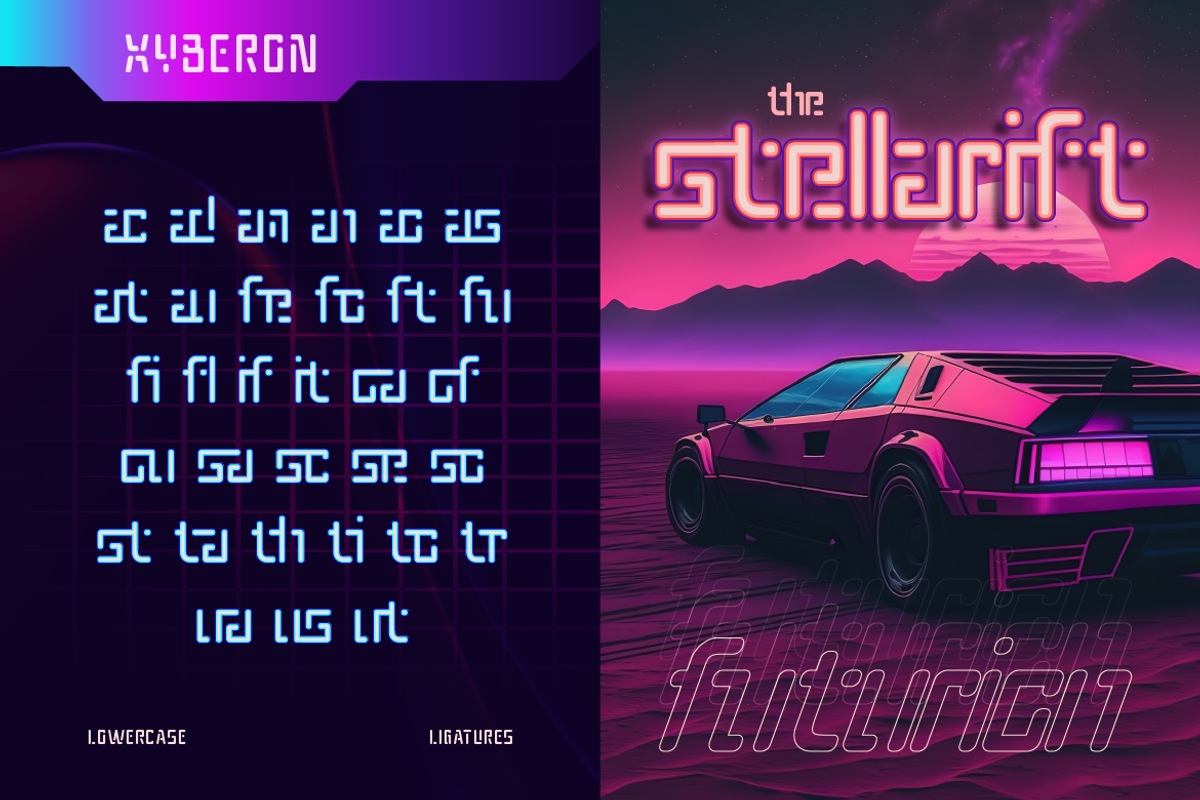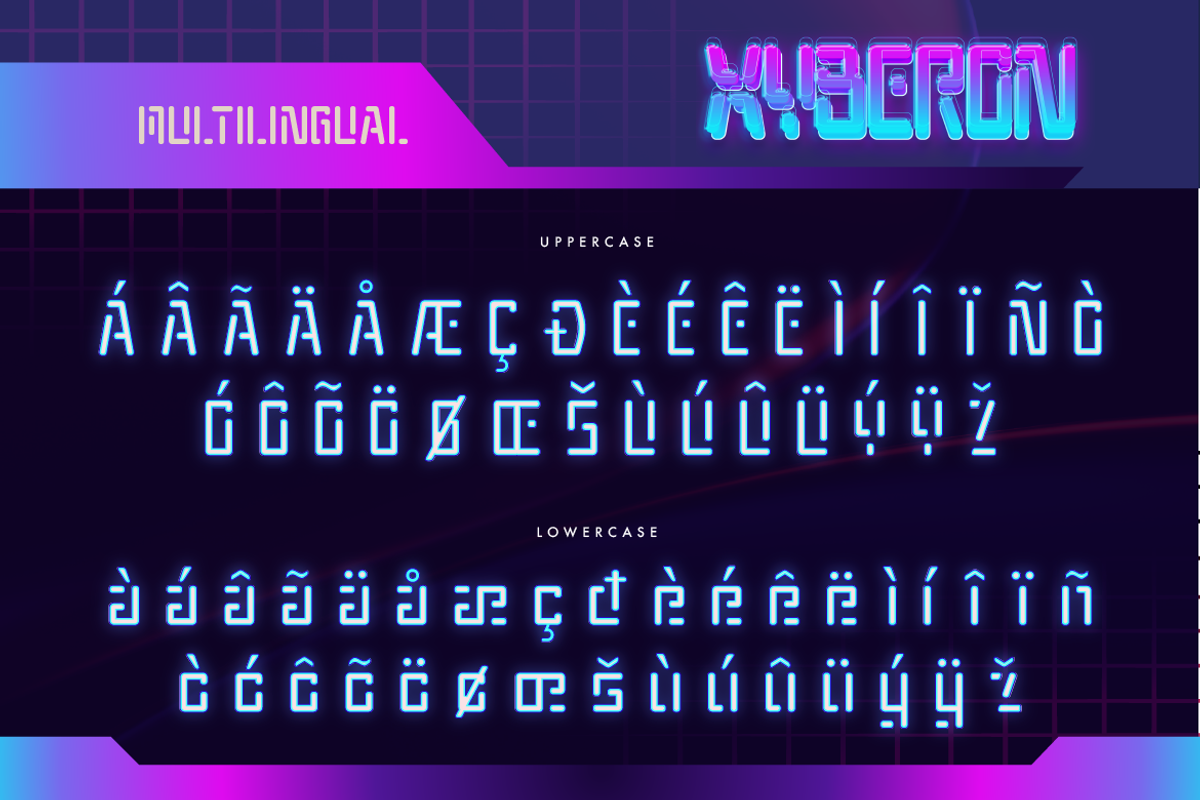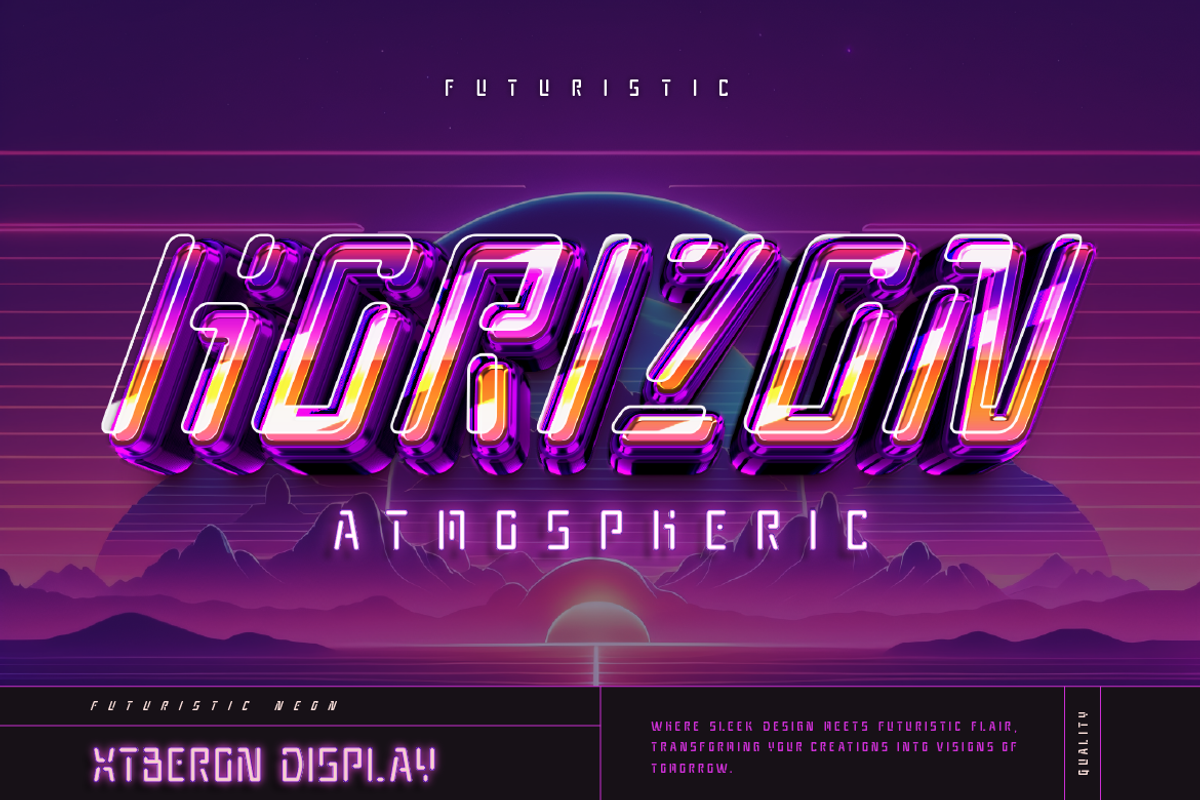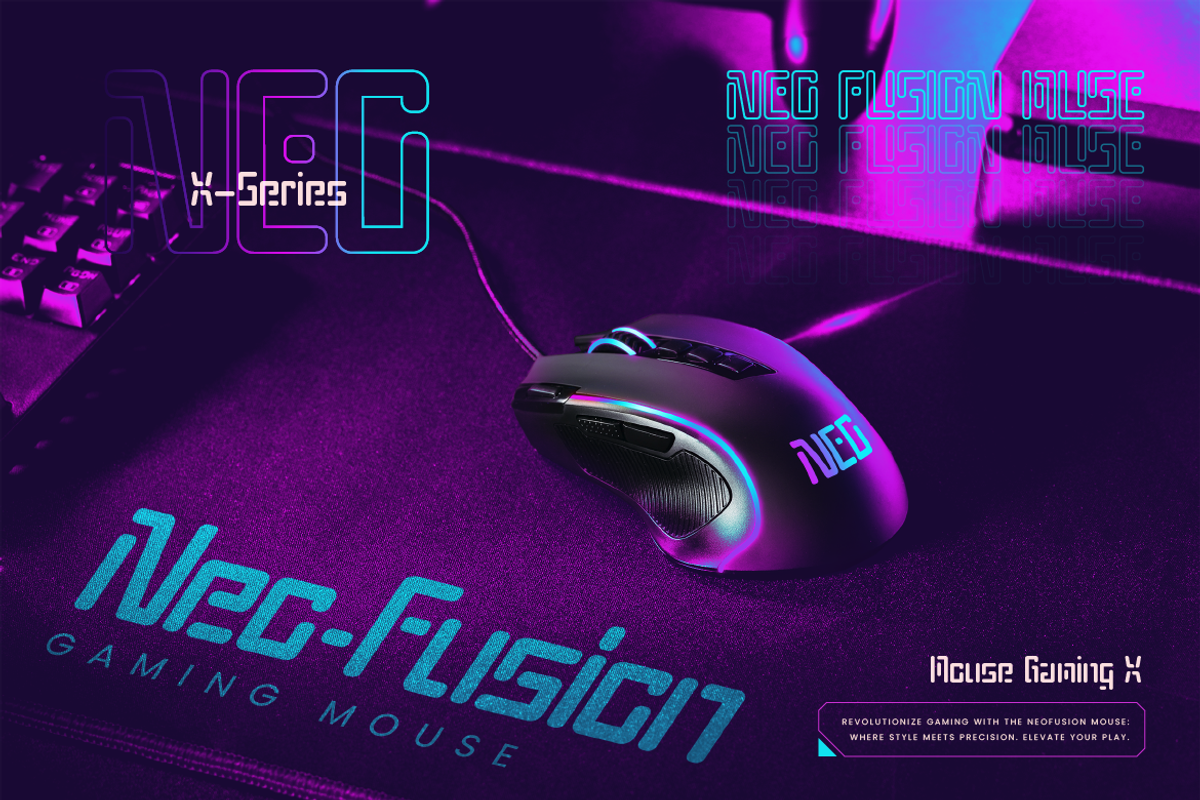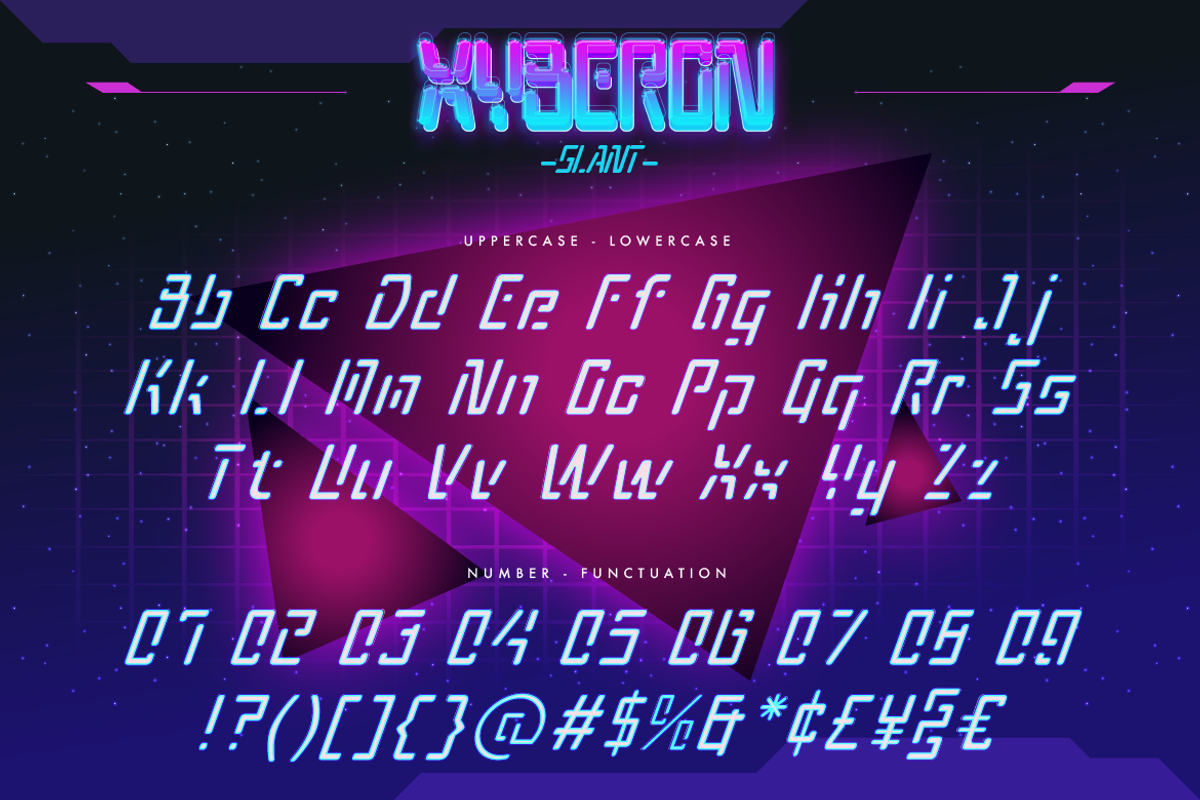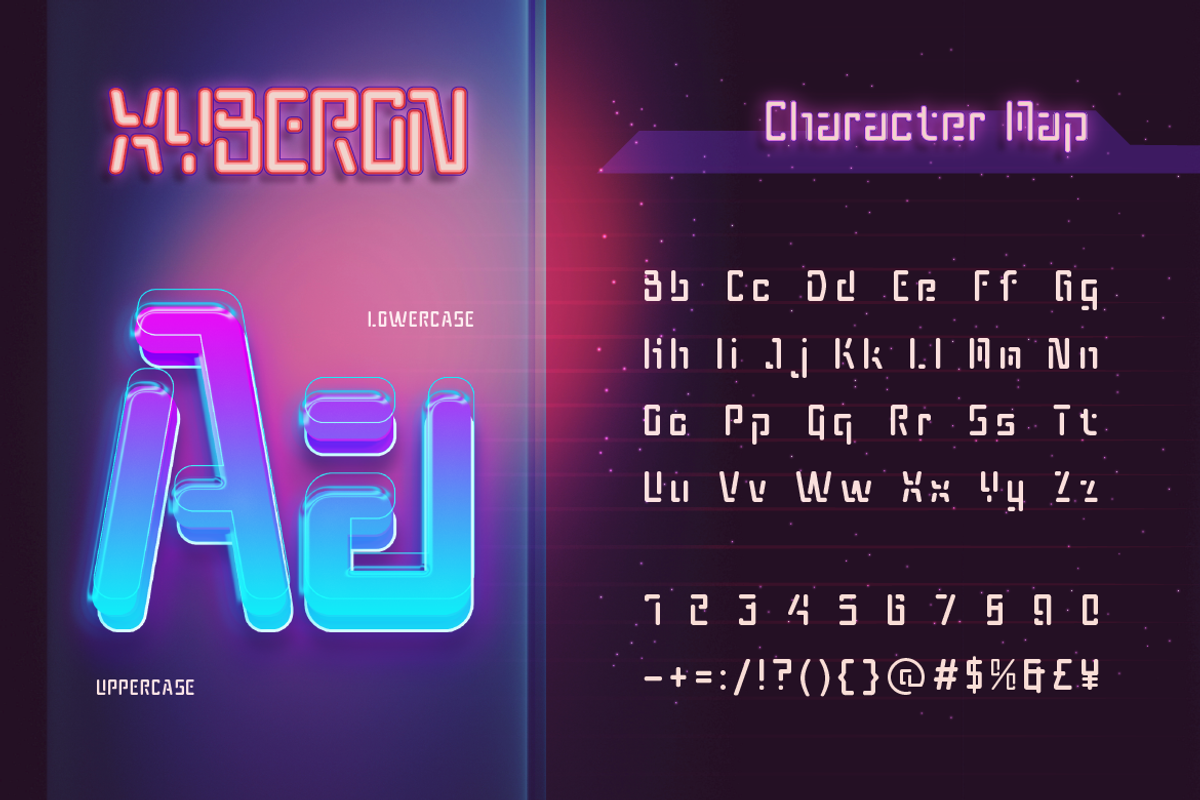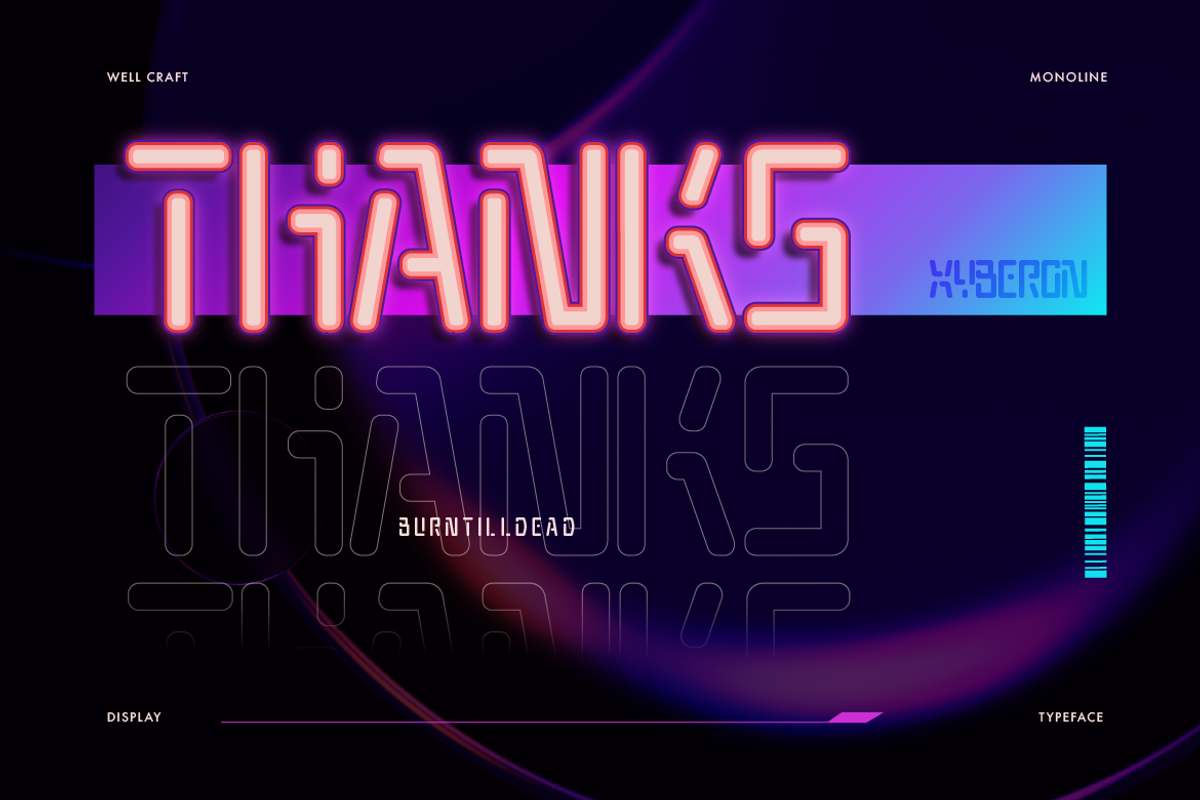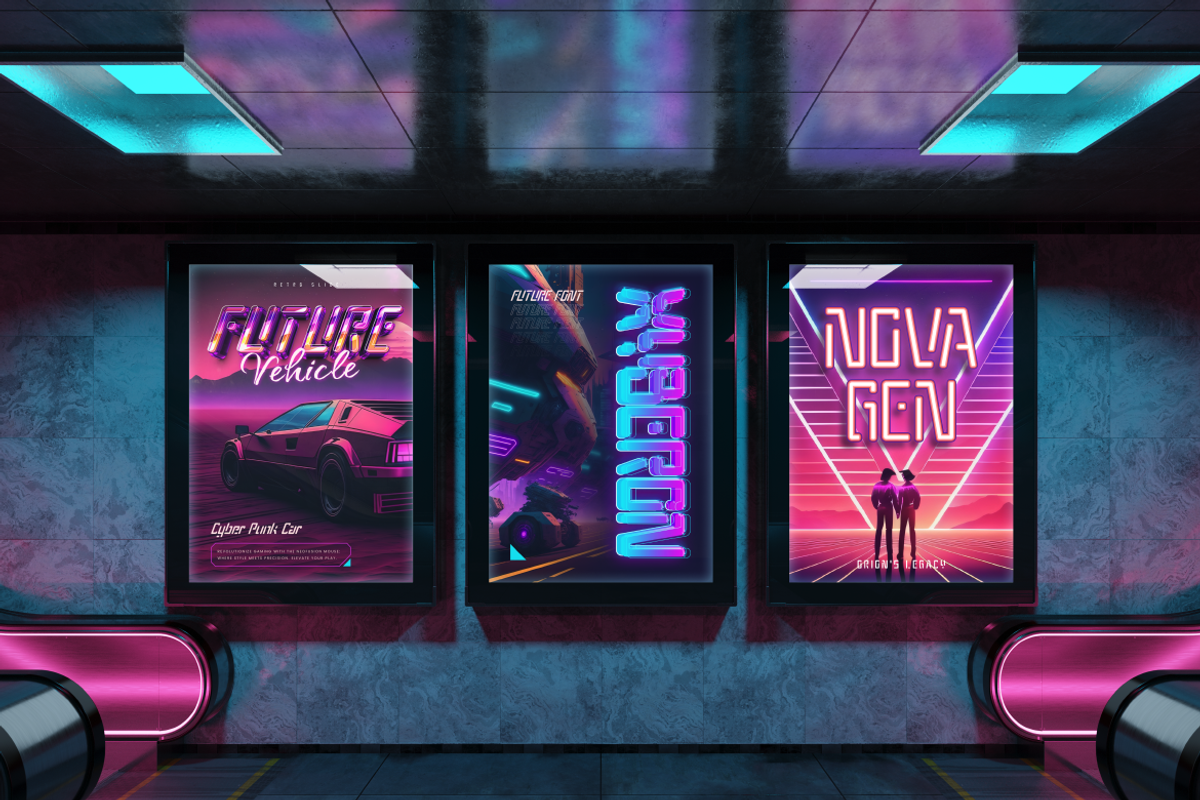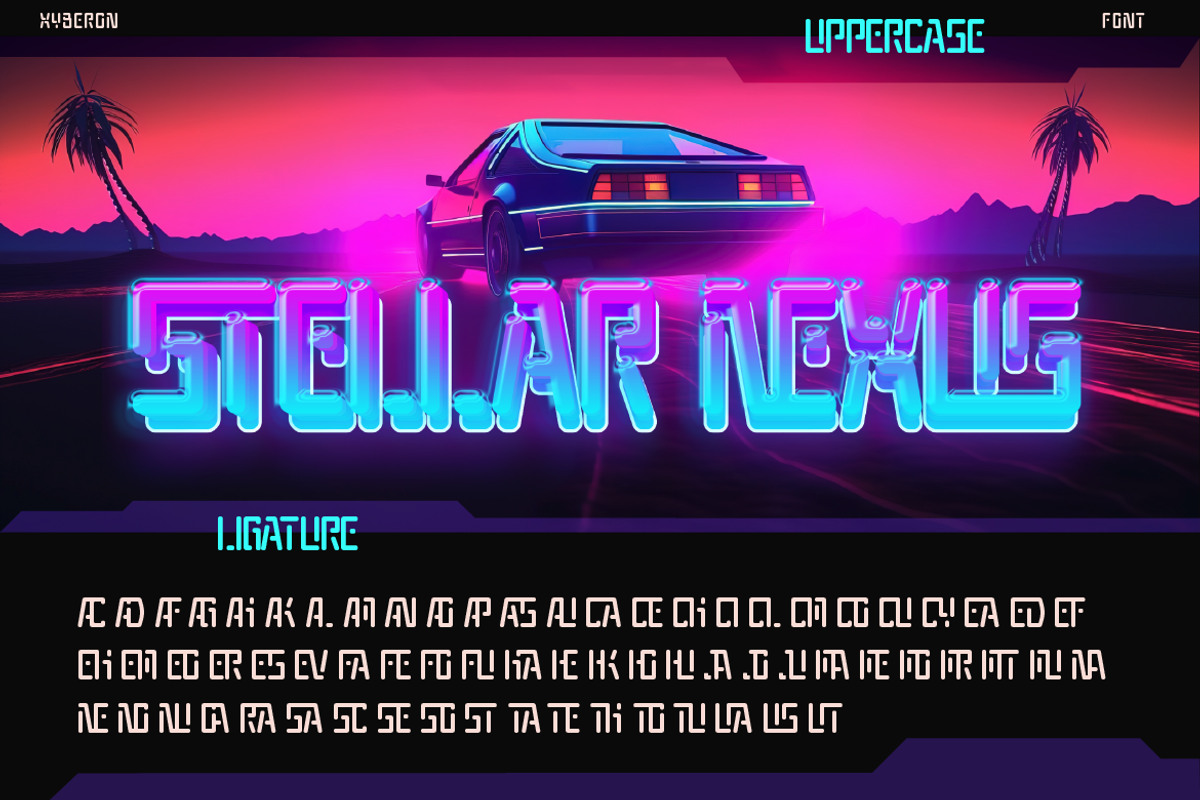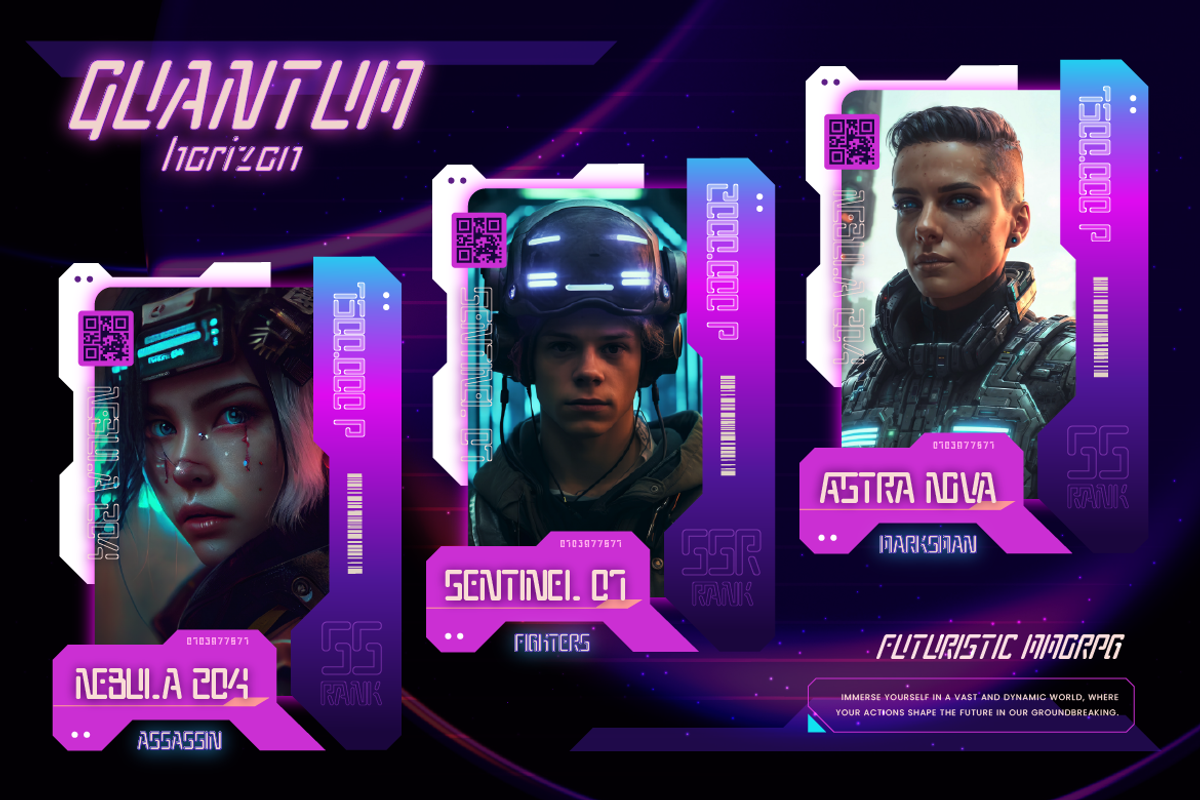
Xyberon
Introducing Xyberon, a monoline font that show sophisticated futuristic and modern. This font has regular and slant style. Where sleek design meet futuristic flair, transforming your creations into visions of tomorrow. Xyberon is a futuristic neon and perfectly stands out in branding, headlines and artistic projects.
- A - Z set (uppercase & lowercase)